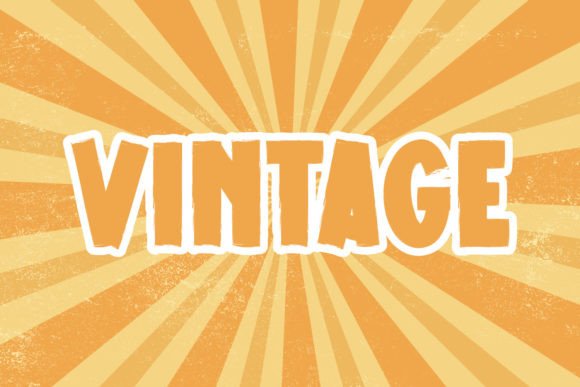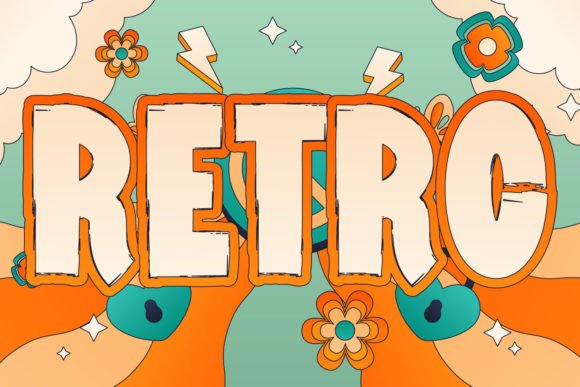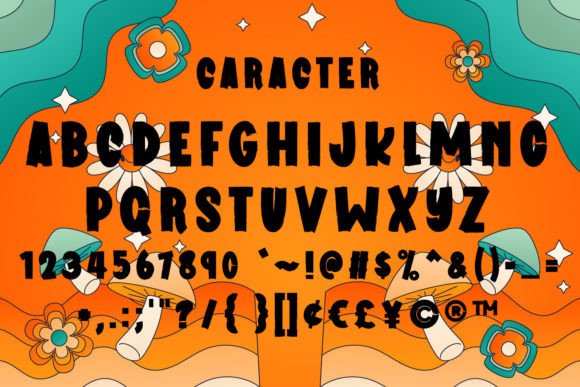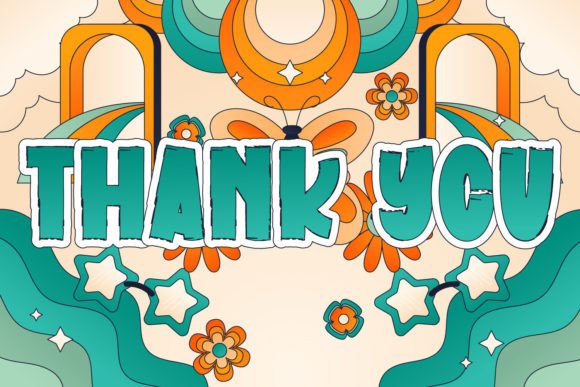
The Perfect Blend of Playfulness and Authenticity: Grunge Font
Have you ever stared at a blank canvas, waiting for the perfect font to spark your creativity? That’s exactly what happened to me when I was designing a children’s book cover. I needed a font that would transport me back to my carefree childhood days, full of imagination and adventure. And then, it hit me – the Grunge Font.
This cool, brushed, and thick lettered display font is more than just a typography choice; it’s an emotional connection to the authentic and playful world of childhood. The Grunge Font embodies the spirit of creativity and imagination, making it the perfect choice for any children’s activity or school project.
As a designer, you know the value of a well-chosen font. The Grunge Font offers a unique blend of playfulness and authenticity that can elevate your designs and leave a lasting impression on your audience. Its versatility makes it an invaluable addition to any design toolkit, and its natural charm is sure to captivate young and old alike.
Grunge Font Key Features
- Font Family: Grunge Font is a distressed, rough, and worn-out font family, often used to convey a vintage or retro feel.
- Unique Characteristics: This font features distressed textures, rough edges, and a worn-out look, giving it a unique and eye-catching appearance.
- Legibility: Despite its distressed appearance, Grunge Font is designed to be readable and clear, making it suitable for a wide range of design applications.
- Style Variations: The font family includes various style variations, such as bold, italic, and condensed, to provide designers with more flexibility and options.
Grunge Font Review
I’ve had the chance to play around with the Grunge Font, and I have to say, it’s a unique and eye-catching addition to any design project. ✨ One thing that stands out is its versatility – it works well in both digital and print designs. The font’s distressed texture and subtle imperfections give it a rugged, edgy feel that’s perfect for music, fashion, or art-inspired projects.
Another thing I appreciate about the Grunge Font is its range of customization options. You can adjust the texture, color, and even the level of distortion to fit your design needs. This makes it easy to get the perfect look, even for complex projects.
- ⚠️ The font can be overwhelming if used excessively – it’s best to use it as an accent or focal point.
- ⚠️ Some users may find the font’s imperfections distracting, especially if they’re not familiar with distressed textures.
Overall, I think the Grunge Font is a great addition to any designer’s toolkit. It’s a bold, attention-grabbing font that can add some serious style to your designs. Just be mindful of its limitations and use it thoughtfully to get the most out of it.
The Grunge Font is perfect for:
- Rock music and grunge-inspired designs.
- Edgy and alternative fashion designs.
- Urban and street art-inspired designs.